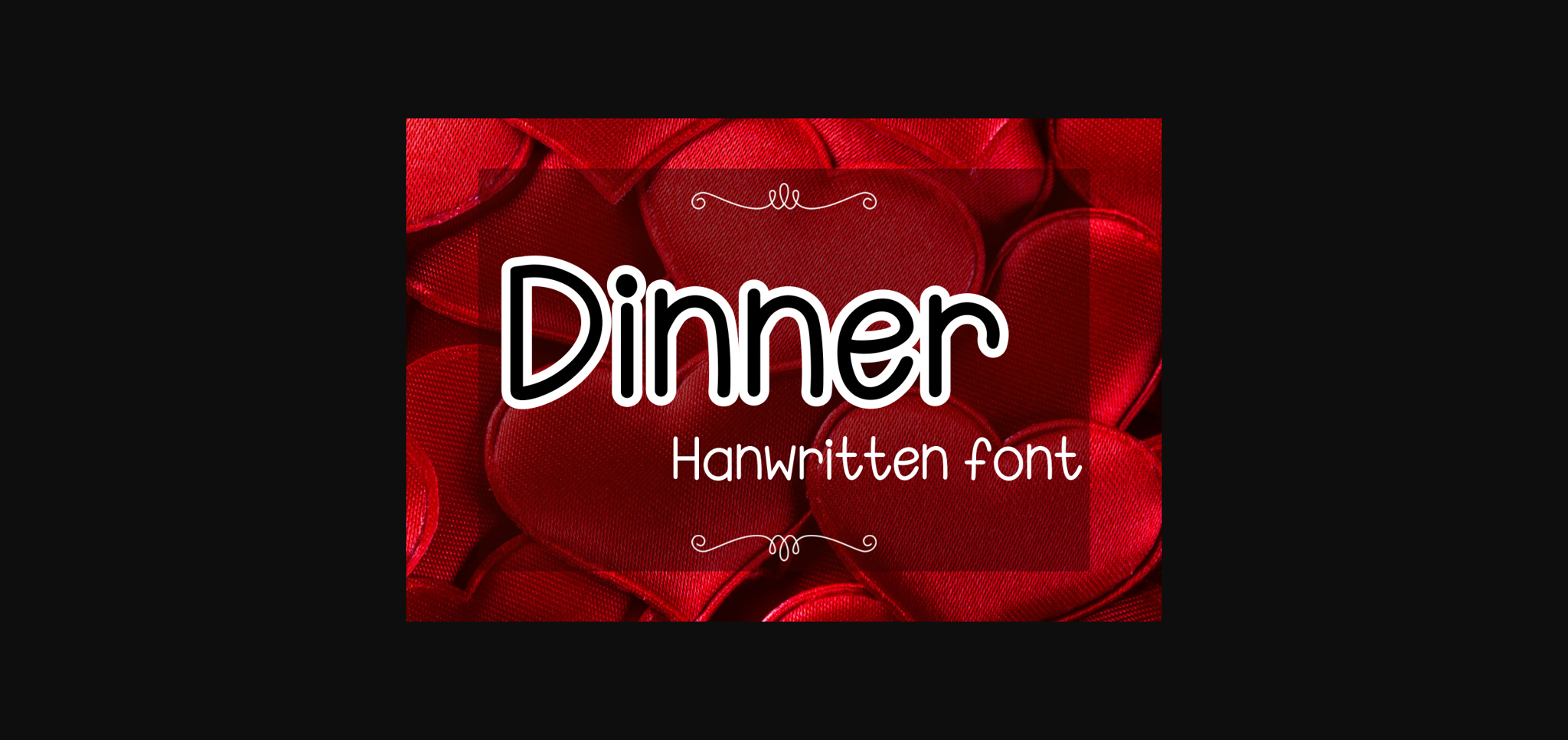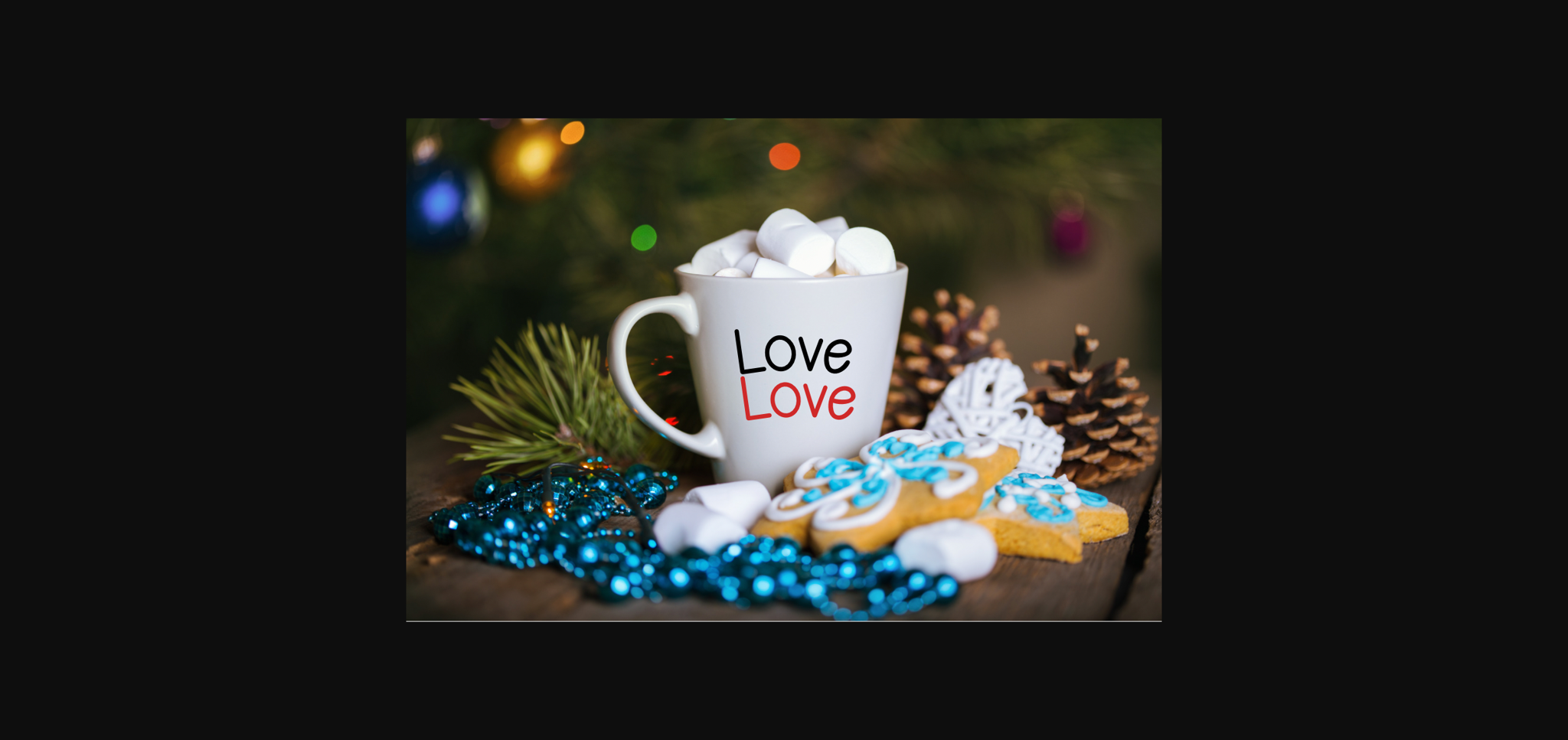
About Dinner Font
Dinner is a handwritten font. You can use it for taking notes, writing a diary or making greeting cards. However you can still use it for other designs such as banners content mugs cards shirts stationery social media posts and more!